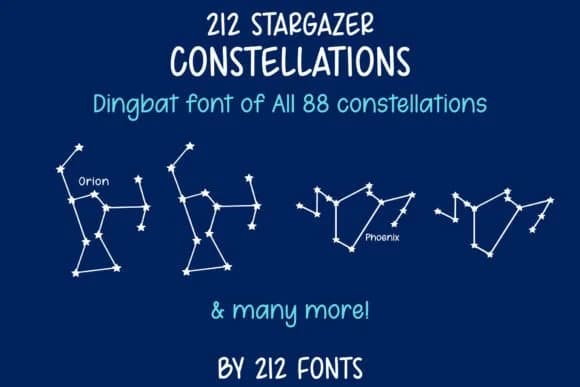
Stargazer Constellations by 212 Fonts transforms the night sky into a working typeface, replacing standard characters with connected star patterns and genuine cosmic shapes. Each glyph maps to a recognizable constellation or celestial marker, letting you pull actual star formations directly into your designs instead of layering decorative elements on top.
This approach matters for work that takes celestial imagery seriously. Spiritual product packaging and astrology brand identities gain immediate visual credibility when the typography itself references real star maps. Zodiac journal covers, tarot-themed Etsy product labels, and planetarium posters all read with more authority when the letterforms trace actual constellations. Astronomy education materials benefit similarly, as do celestial wedding invitations where the type system becomes part of the thematic storytelling rather than just supporting it.
The font includes a full glyph set with multiple star configurations, giving you flexibility to select specific constellations for different contexts and layouts. Technical precision matters here: you get the actual geometric relationships between stars, not simplified approximations that lose the constellation's character. It's built for designers and DIY makers working on projects where celestial accuracy or cosmic theming isn't just decorative but central to the concept. Find Stargazer Constellations on Creative Fabrica to add authentic constellation typography to your design toolkit.
Stargazer Constellations Font is a versatile dingbats font that works for both headings and body text. Pair it with a contrasting sans-serif or serif font to add visual interest and a clear distinction between titles and body copy.